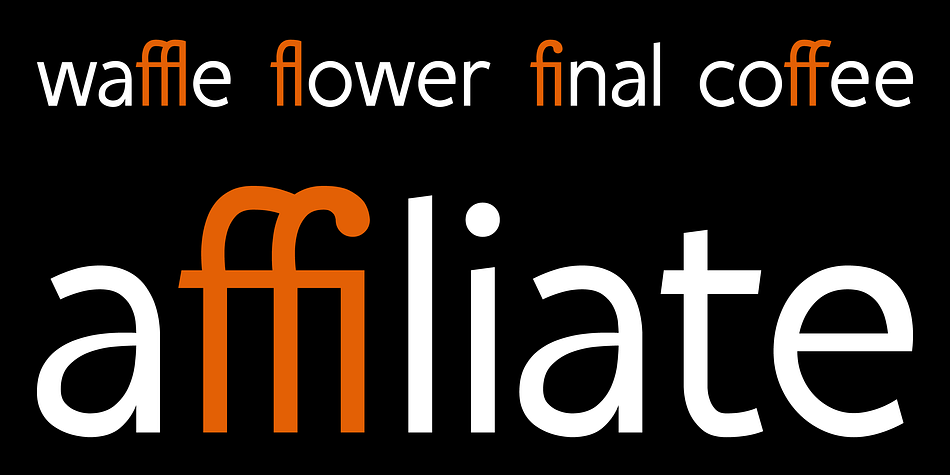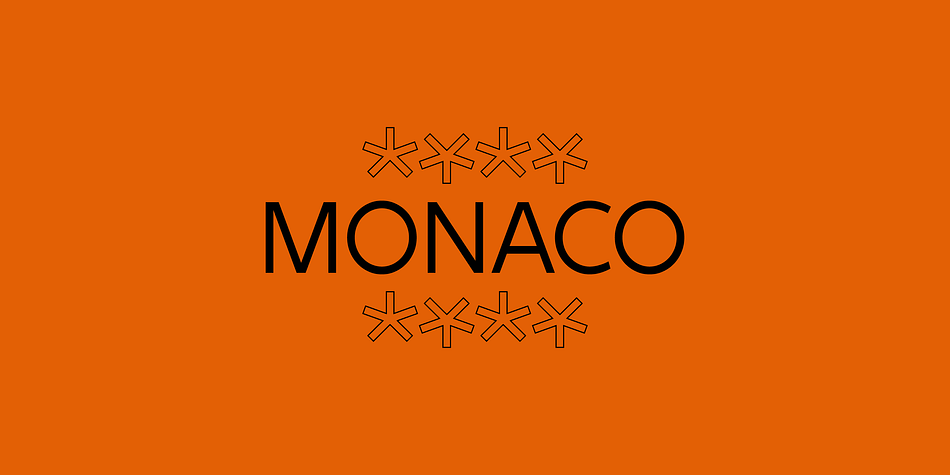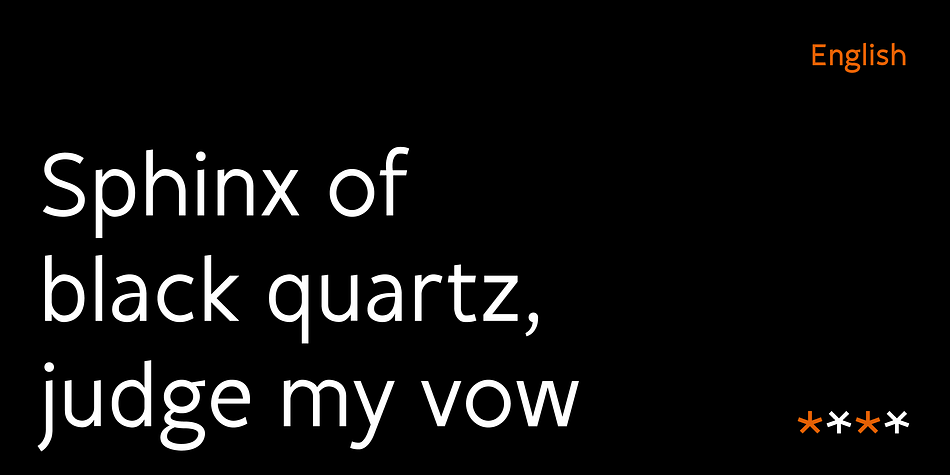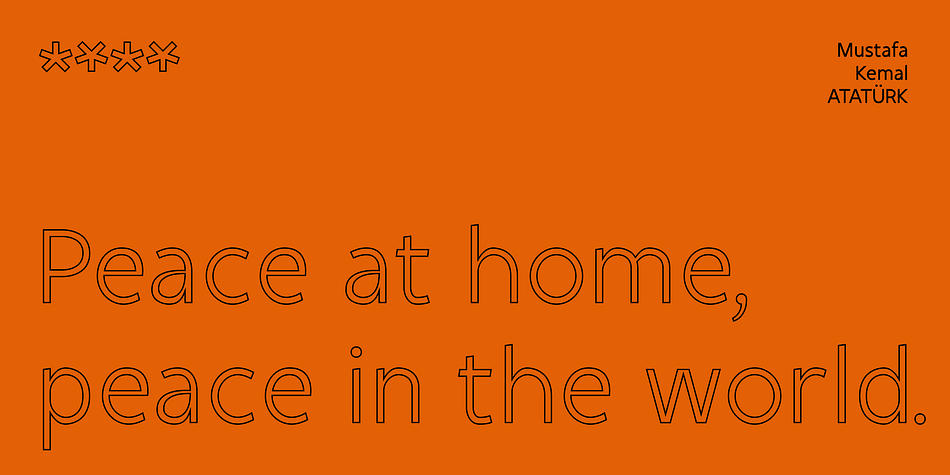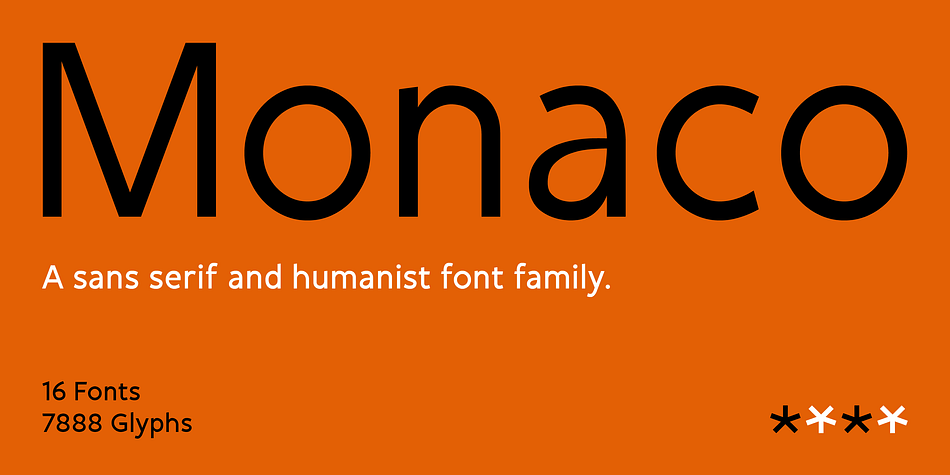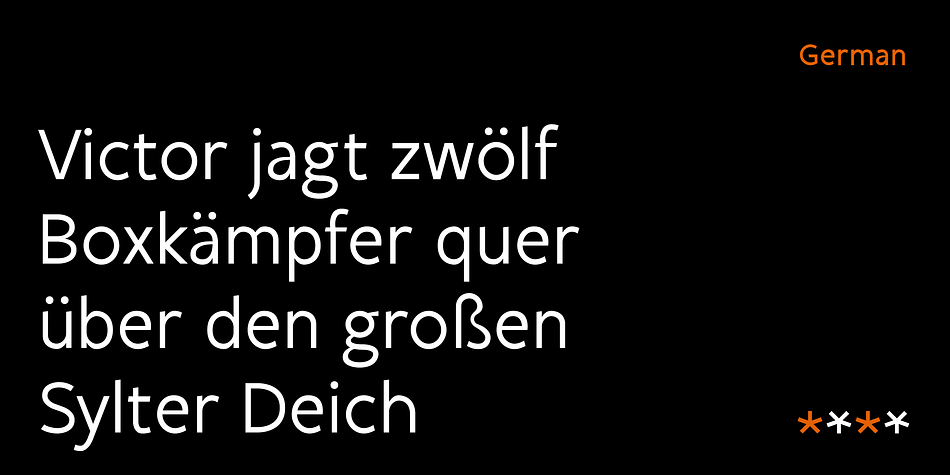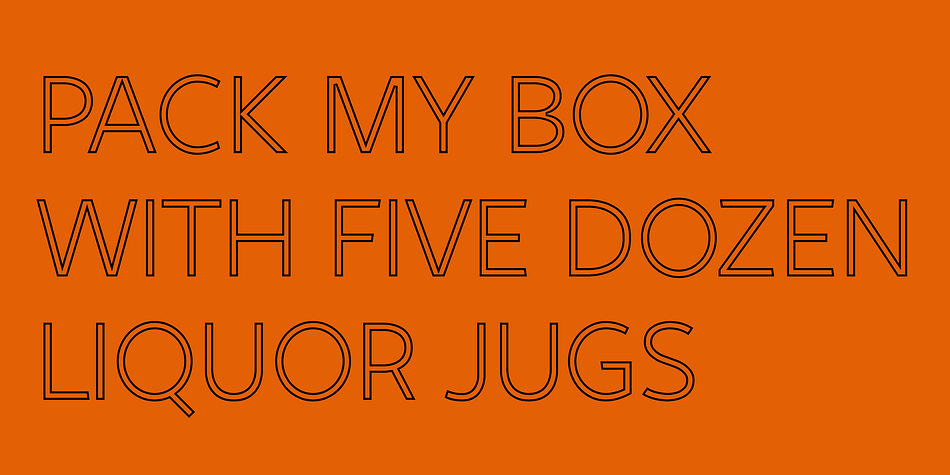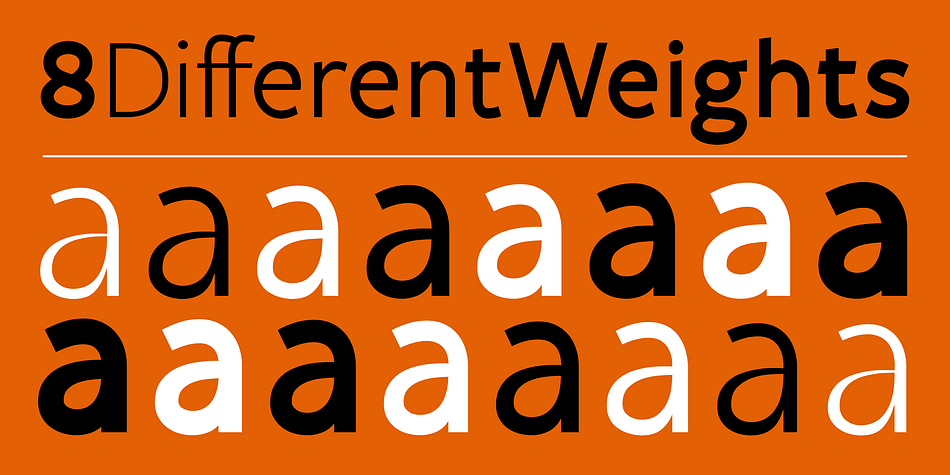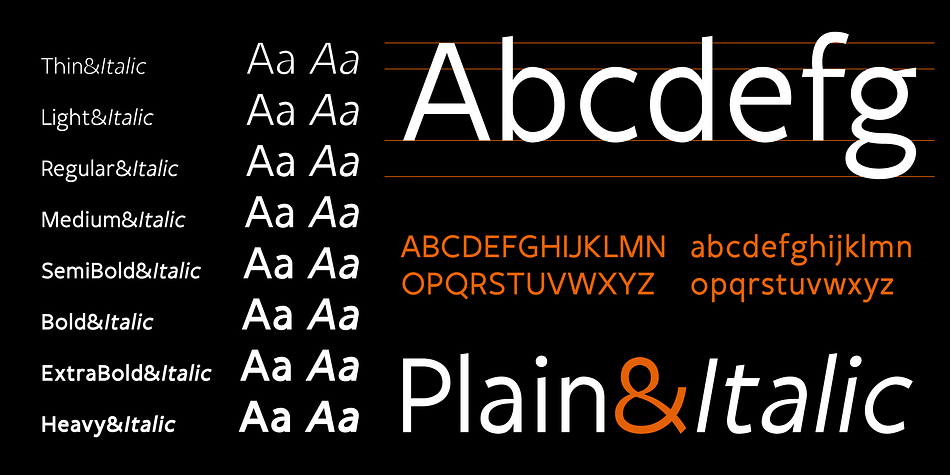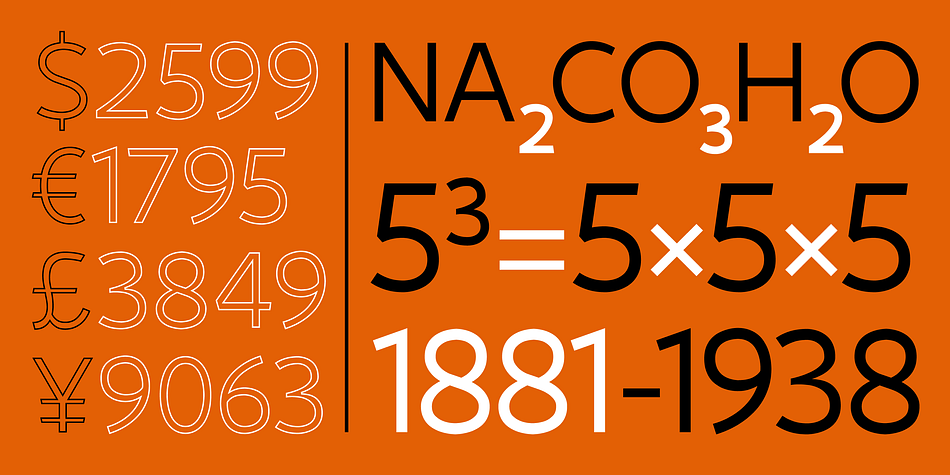
Designed by Salih Kizilkaya, SK Monaco is a sans serif font family. This typeface has sixteen styles and was published by Salih Kizilkaya.
SK Monaco is a sans serif and humanist font family with a clean design. This font family, which you can use in long texts or headings without any hesitation, manages to stand out even in the most crowded environments. As you can easily use in print and web design, this is just the sans serif you need in any medium you need.
This family, which consists of 16 fonts and 7888 glyphs in total, offers full support to the Latin alphabet and includes all the typographic materials you will need in your designs.